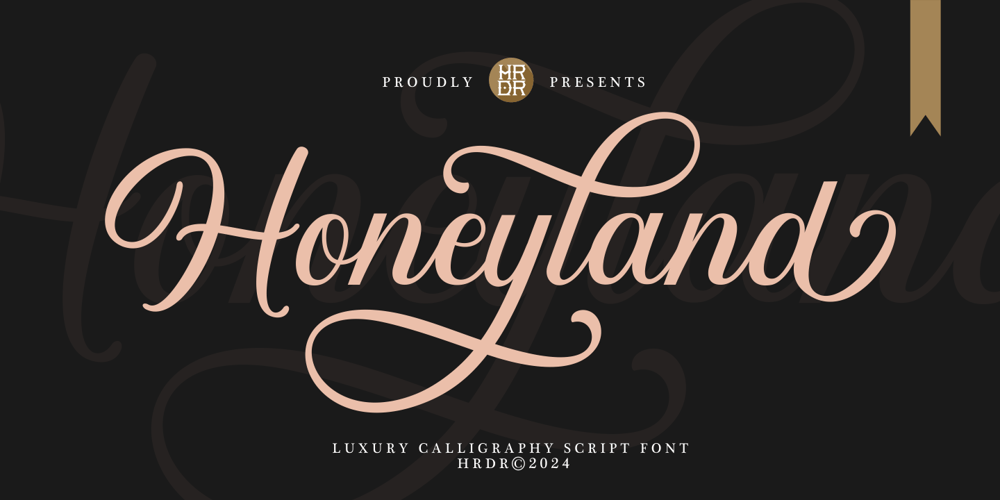
Honeyland
Honeyland font
Honeyland Font Family was designed by Dede Mulyadi and published by HRDR. Honeyland contains 1 styles and family package options. Honeyland font was made to be a good and beautiful font,curves and lines are so soft which makes this font look pretty, Really befit to all your design project, like invitation card, product logo, food brand logo and much more..Honeyland also supported with extra character that include : standart ligatures,swashes, stylistic set 01 – stylistic set 04, that will help you get beautiful style with your own creation.